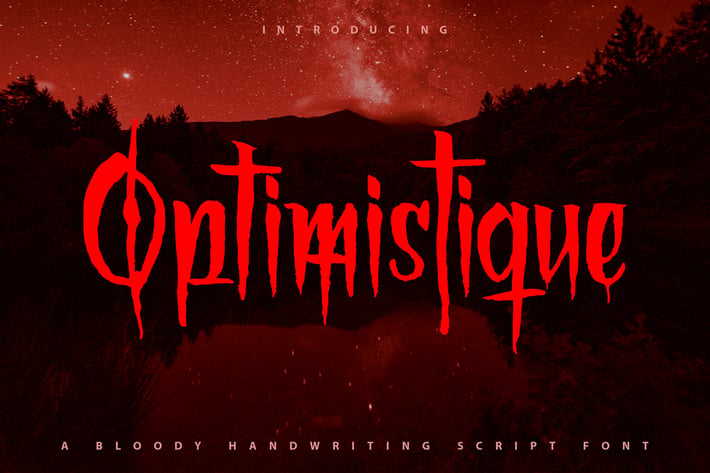
Optimystiq | Bloody Handwriting Script Font
Optimystiq | Bloody Handwriting Script Font with a calligraphy style, So beautiful on invitation like greeting cards, branding materials, business cards, quotes, posters, and more!